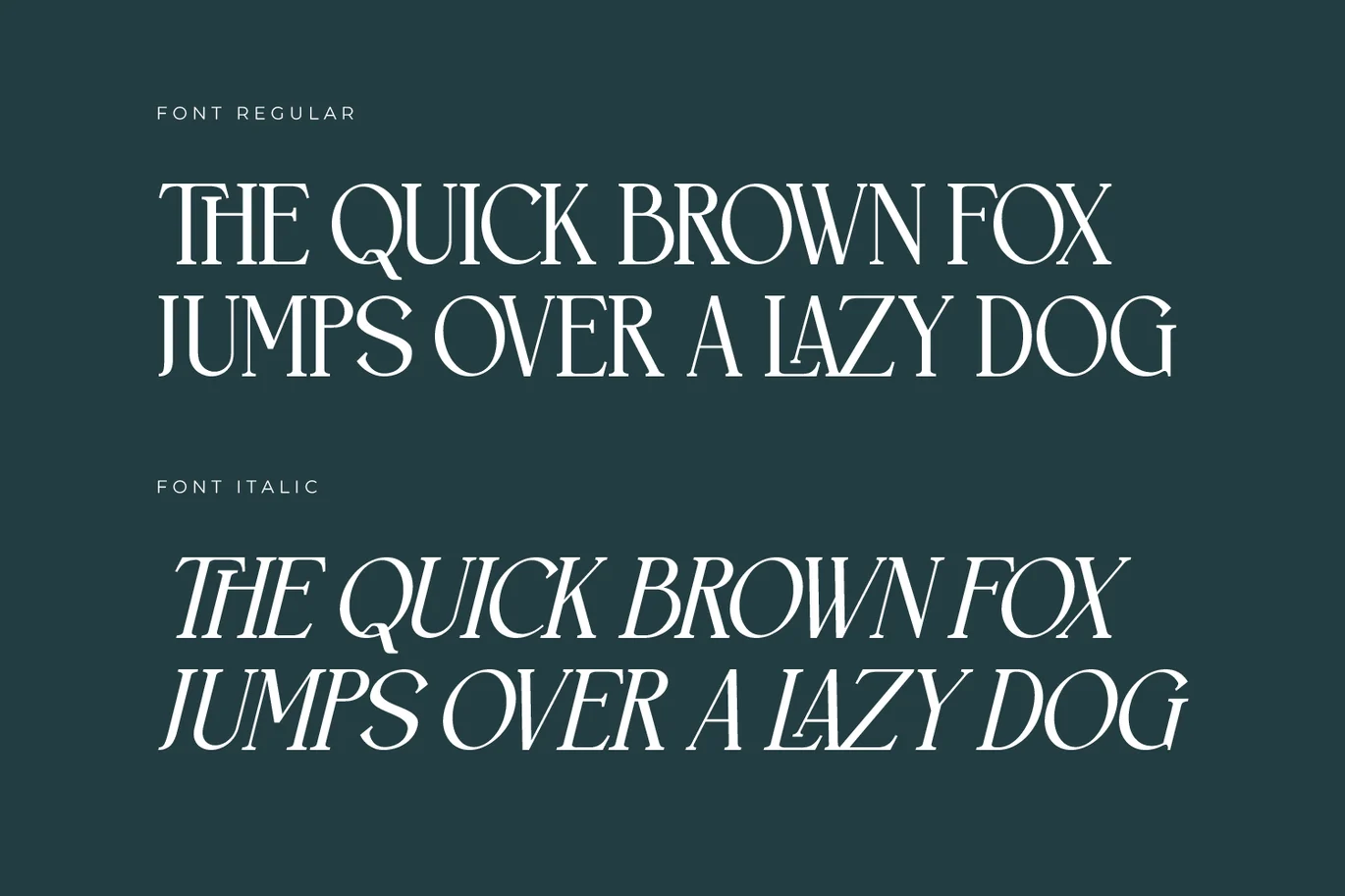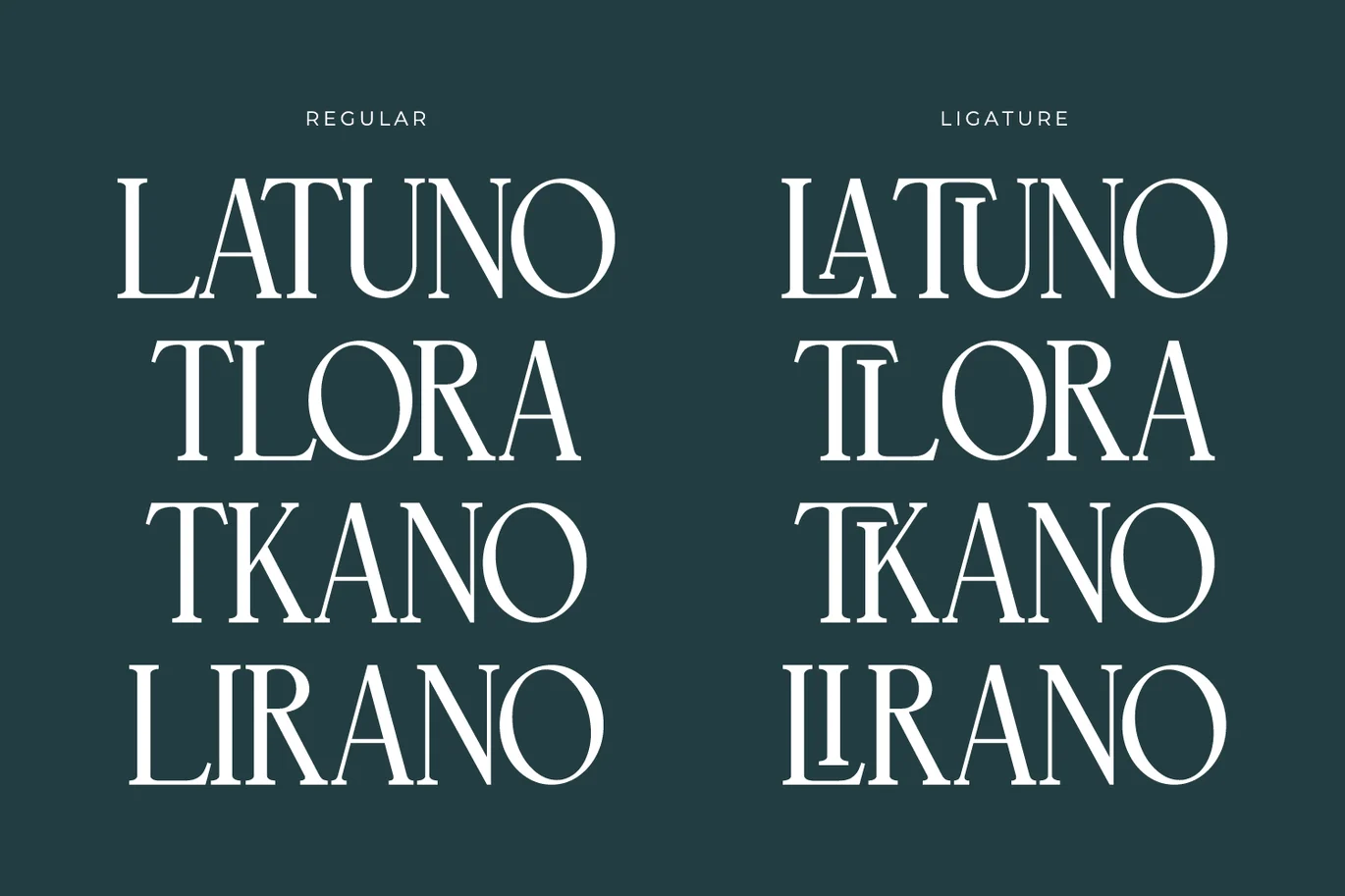
Eclarish Font
Eclarish - Serif Typeface Font, from Rishsketch Studios, is a premium Serif Typeface Font, perfect for any project that requires a distinctive, and premium feel.
Ligature, Alternate & Multilingual